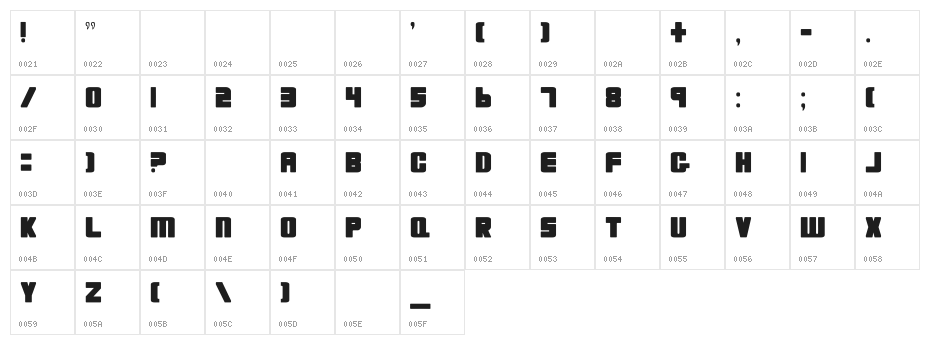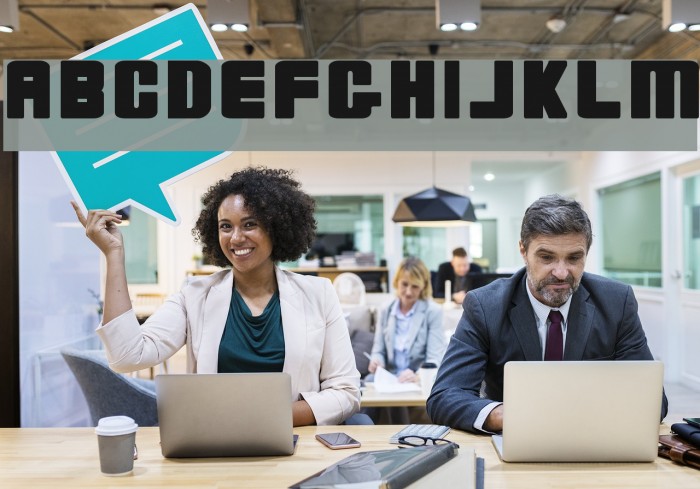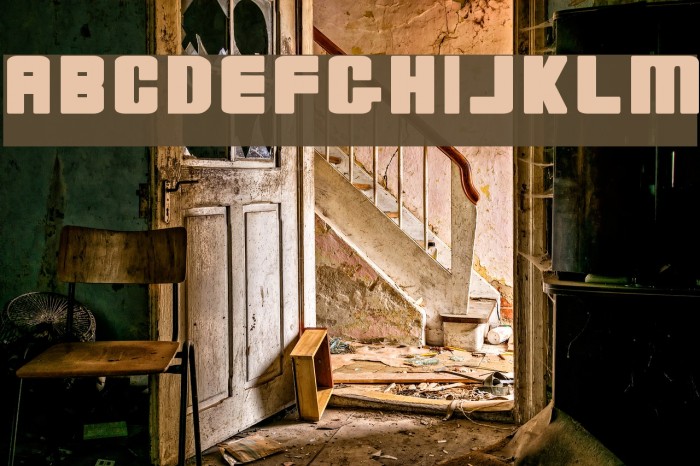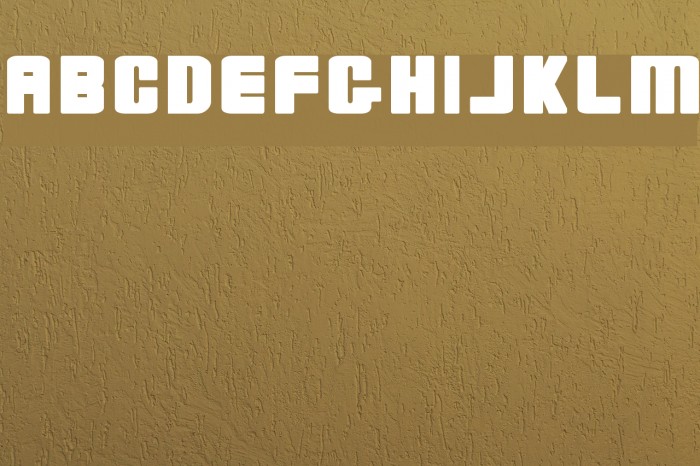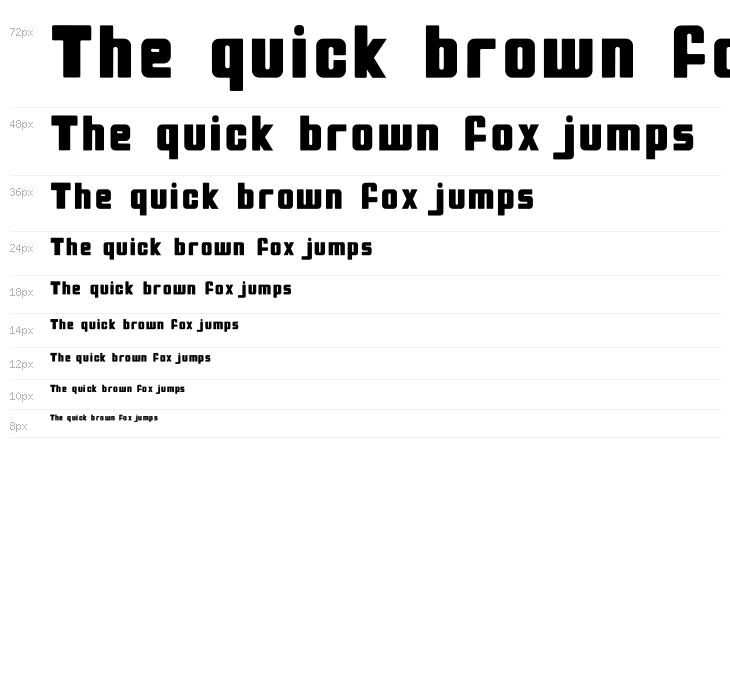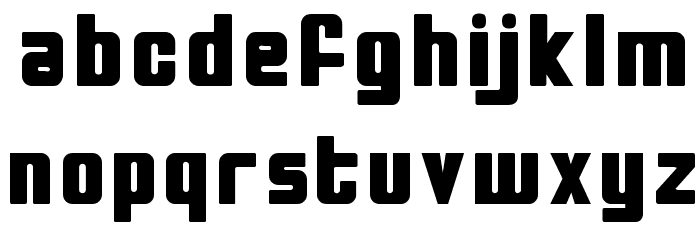
Bio-disc Solid Font
Bio-disc Solid Description
This font features a bold and robust design with a distinctly modern and geometric style. The characters are constructed with thick, uniform strokes, giving them a solid and impactful appearance. The uppercase and lowercase letters maintain a consistent width, contributing to a cohesive and structured look. The numerals are equally bold, ensuring they stand out clearly. Special characters are designed to match the overall aesthetic, providing a seamless integration with the rest of the character set. The font's strong presence makes it ideal for attention-grabbing applications.
| Proposed Projects | Ideal for posters, headlines, branding, and logos where a strong visual impact is desired. |